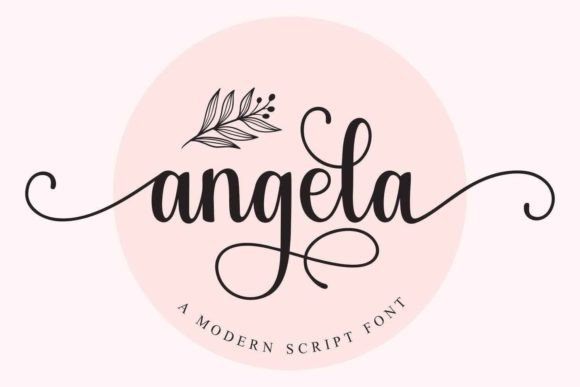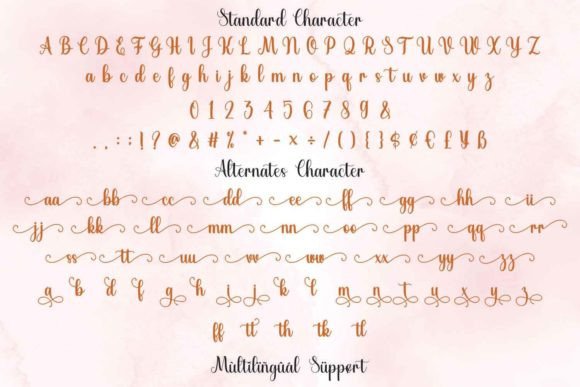
Angela Font
Angela is a modern handwritten font. With its unique and artistic design, this font is perfect for adding a touch of elegance to any project including logos, wedding invitations, business cards, and much more. It will look great on wall displays, social media post logos, advertisements, product packaging, product designs, labels, photography, watermarks, stationery, and any project that requires handwritten taste.